Choosing the right feminine fonts for hair salon branding can completely change how clients perceive a beauty business. Before someone books an appointment, they may first discover the salon through Instagram, a storefront sign, a promotional poster, or a website. Typography helps shape that first impression by communicating whether the salon feels elegant, modern, playful, luxurious, or approachable.
For hair salons, the best font does more than display the business name. It also needs to work across booking graphics, price lists, service menus, social media posts, loyalty cards, and promotional materials. A typeface that looks attractive but becomes difficult to read at smaller sizes may limit how consistently the brand can use it. That is why feminine typography should balance personality with function.
Why Feminine Fonts Matter in Hair Salon Branding
Hair salons are highly visual businesses. Customers often associate the quality of the branding with the experience they expect to receive. A polished visual identity can make a salon appear more established, while inconsistent typography may make the business feel less professional.
Feminine fonts can create many different moods. They do not always need to use scripts or delicate letterforms. A bold sans serif can still feel feminine when combined with bright colors and fashion-focused photography. Likewise, an elegant serif can create a sophisticated beauty identity without becoming overly decorative. The most important factor is matching the font to the salon’s personality and target audience.
What Makes a Font Suitable for a Hair Salon?
Before choosing a typeface, consider where the salon will use it. A logo needs to remain recognizable on both a storefront and an Instagram profile image. Meanwhile, a promotional poster needs typography that can highlight discounts and booking information quickly.
Brand Personality
Start by defining the salon in a few words. Is it playful, premium, youthful, elegant, edgy, or minimal? These characteristics can guide the font selection more effectively than choosing a typeface based only on current trends.
A luxury hair studio may benefit from a refined serif, while a colorful neighborhood salon may need something bolder and more approachable.
Readability
Salon materials often contain practical information such as service names, booking numbers, prices, and promotional dates. These elements must remain easy to read.
You can use an expressive font for the salon name and pair it with a simpler font for supporting details. This approach keeps the design distinctive while improving usability.
Flexibility
The chosen typeface should work across print and digital applications. Test it on social media graphics, appointment cards, website banners, signage, and service menus before building the complete identity.
Best Feminine Fonts for Hair Salon Branding
Based on the visual examples, Chrastle, Greston, and Mulers each offer a different personality for beauty and hair salon branding.
1. Chrastle for Elegant and Premium Haircut
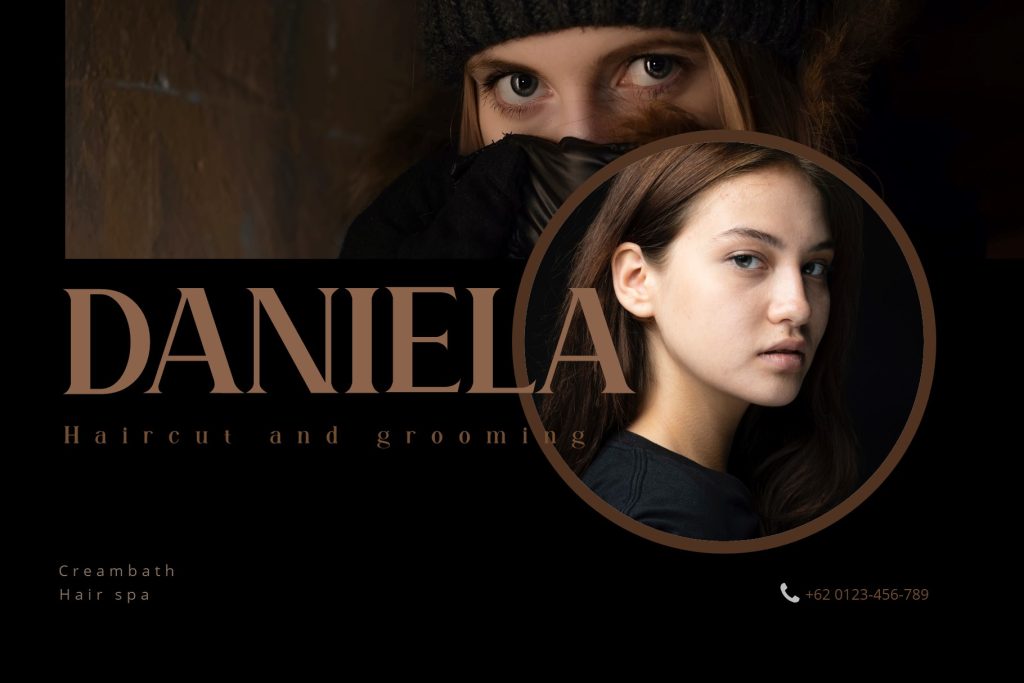
Chrastle creates a sophisticated, editorial mood that works beautifully for premium hair salon branding. The large typography also works well alongside beauty photography without becoming lost in the composition. Its high-contrast serif style makes it suitable for salon logos, premium service menus, storefront signage, hair treatment campaigns, and appointment cards.
Chrastle would be especially effective for salons that focus on hair spa treatments, professional grooming, premium coloring services, or personalized styling. Pair it with a simple sans serif for contact details and service descriptions so the brand remains elegant without sacrificing readability.
2. Greston for Fun and Colorful Salon Branding
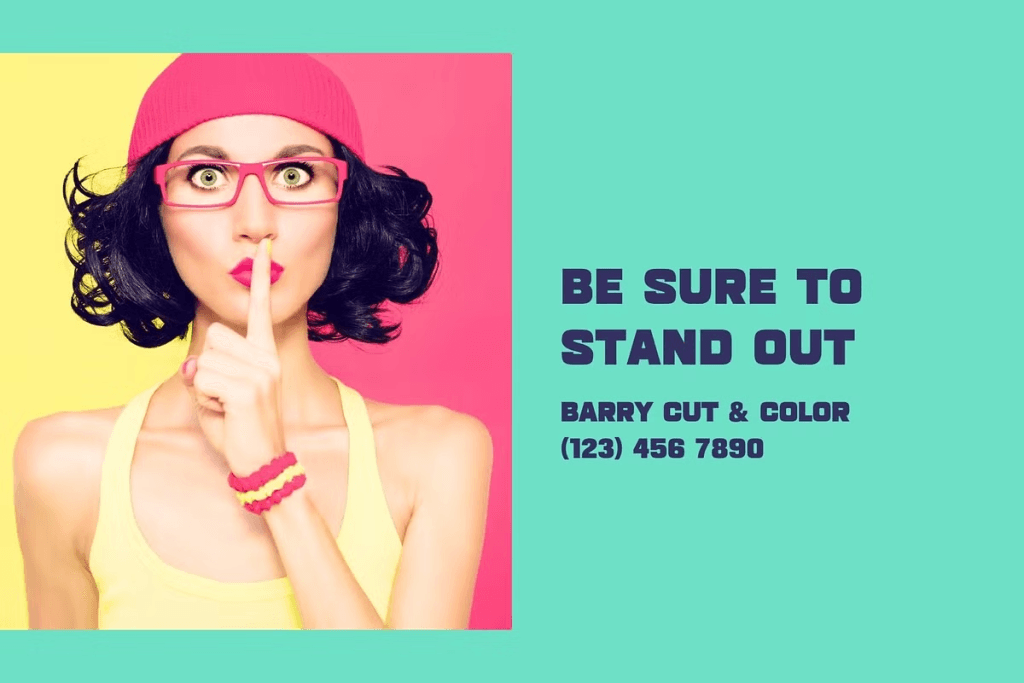
Greston offers a bold and energetic personality that suits salons with a younger and more playful identity. Its strong shapes make short headlines such as “Stand Out” feel memorable, which can be useful for promotional campaigns and social media content. Greston can also support hair coloring studios, creative salons, beauty bars, or businesses targeting customers who enjoy expressive styles.
This typeface works particularly well for Instagram promotions, posters, salon merchandise, window graphics, and campaign headlines. Because its personality is already strong, keep the surrounding typography simple. A neutral sans serif can handle booking numbers, addresses, and service descriptions without competing with the headline.
3. Mulers for Modern and Promotional Hair Salon Designs
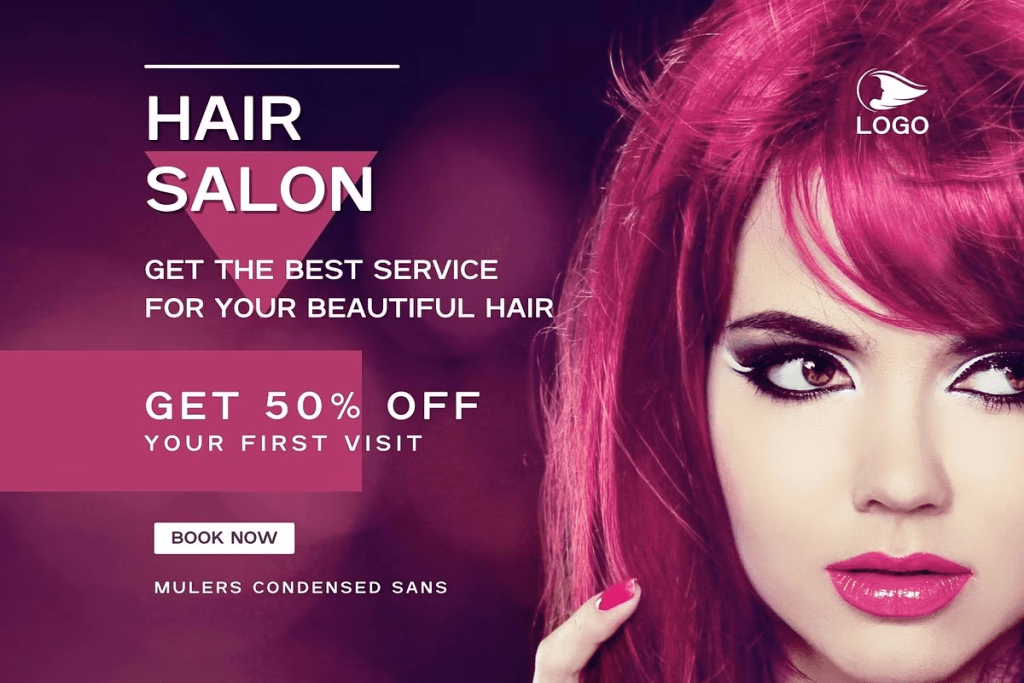
Mulers has a clean, condensed sans serif appearance that gives hair salon promotions a modern and organized look. Its condensed structure makes it particularly useful when the layout contains several pieces of information. The typeface can display a strong “Hair Salon” headline while still leaving room for messages such as “Get 50% Off” and “Book Now.”
The best choice depends on the salon’s audience, services, visual direction, and customer experience. Rather than choosing a font simply because it looks fashionable, test how it performs across logos, social media, signage, price lists, and booking materials. When typography consistently reflects the salon’s personality, the brand becomes easier to recognize and more convincing to potential clients.